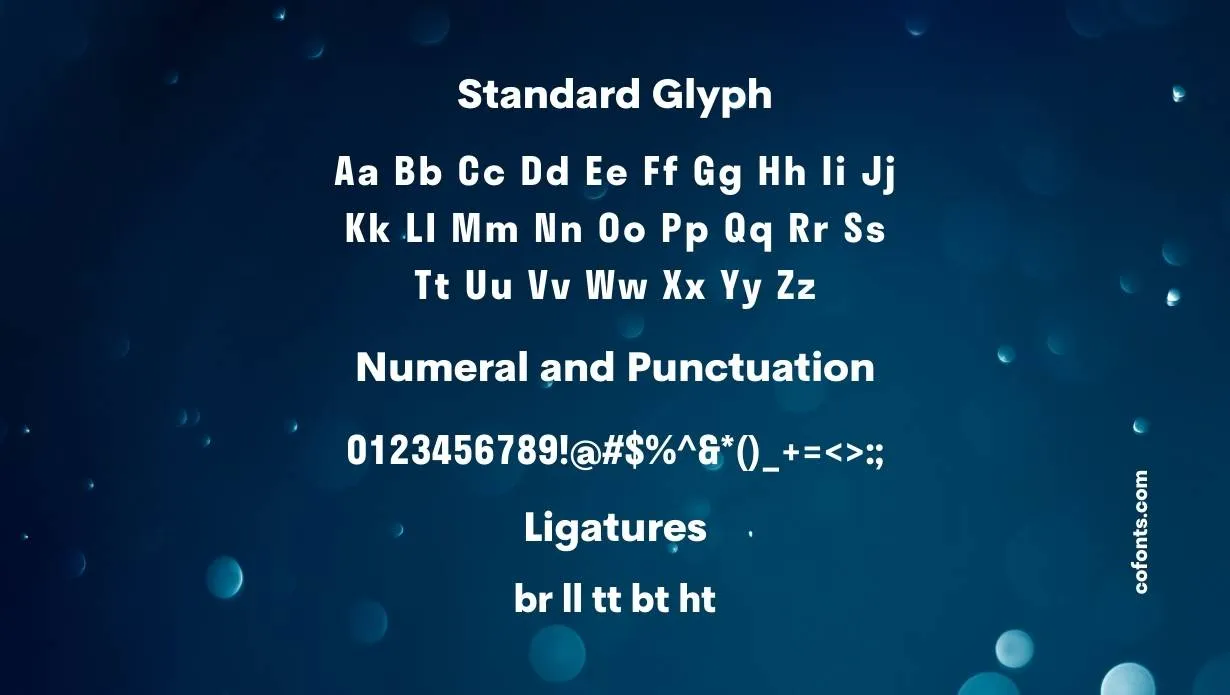
About Stratos Font Free Download
Stratos Font Free Download is a modern typeface available in multiple variants and styles.
- Stratos Font Regular
- Stratos Font Bold
- Stratos Font Italic